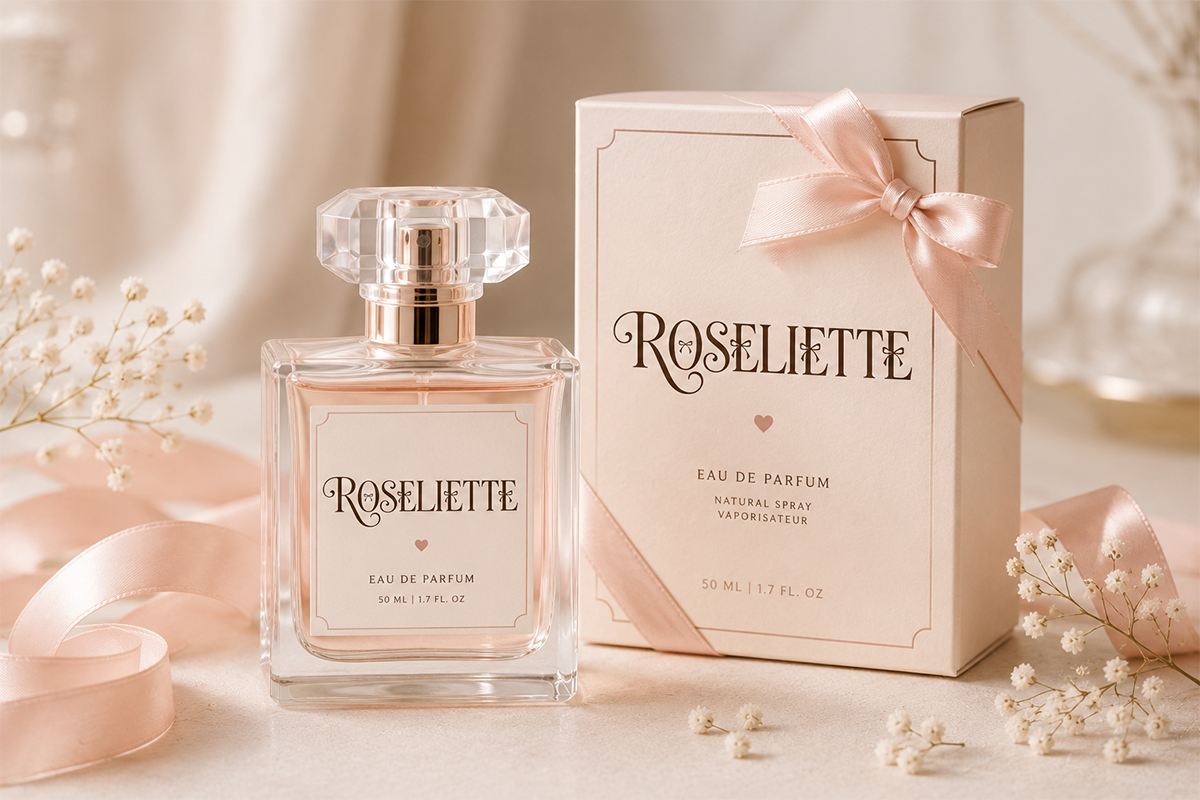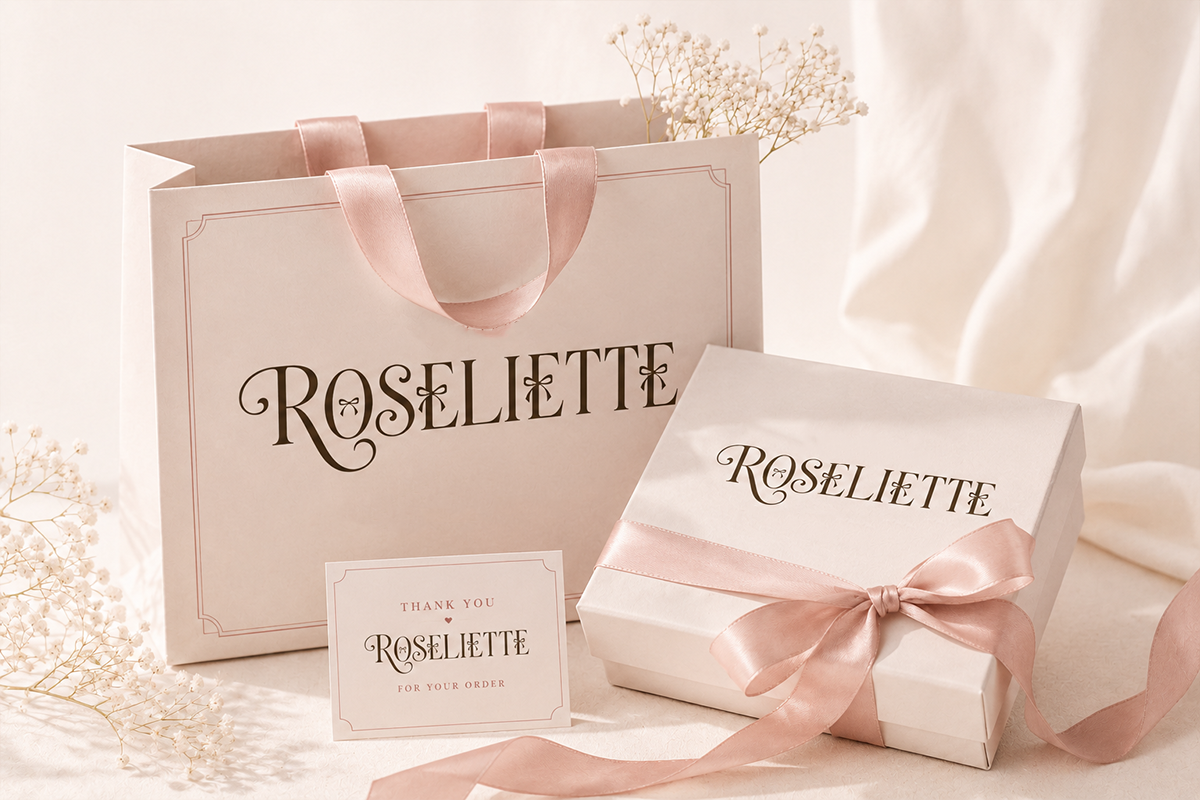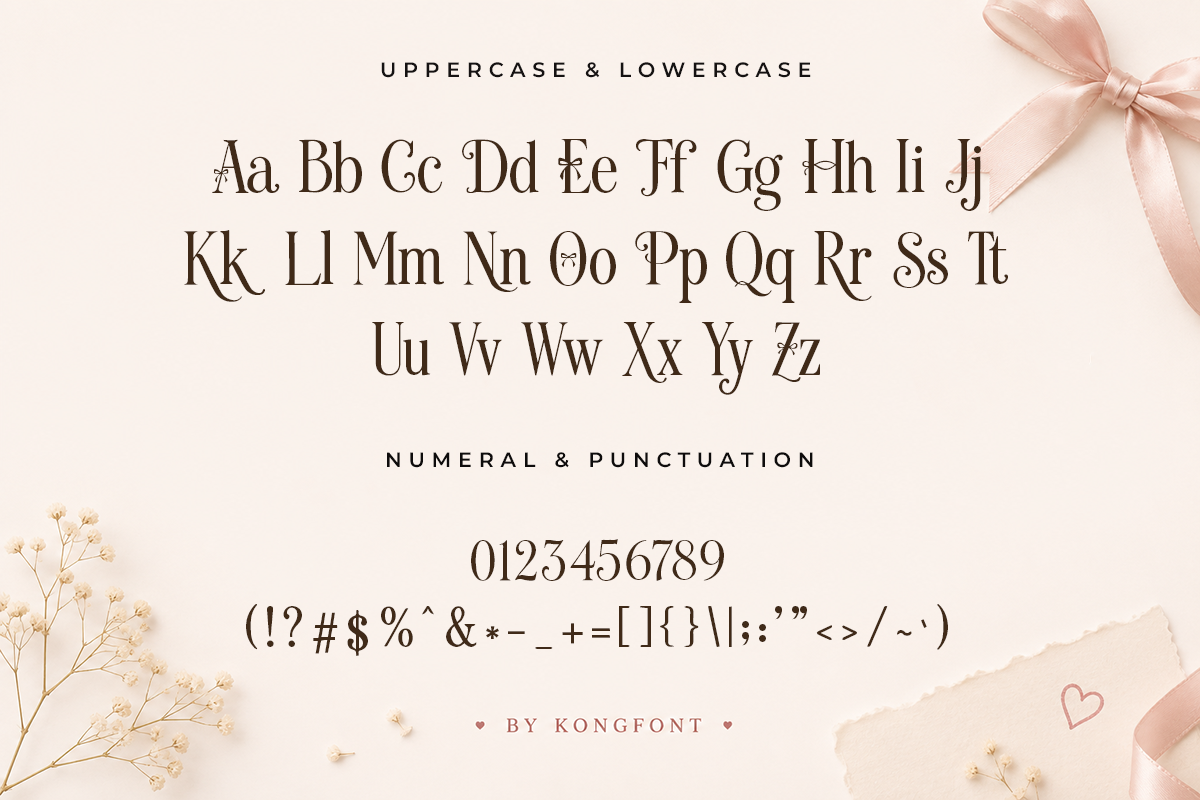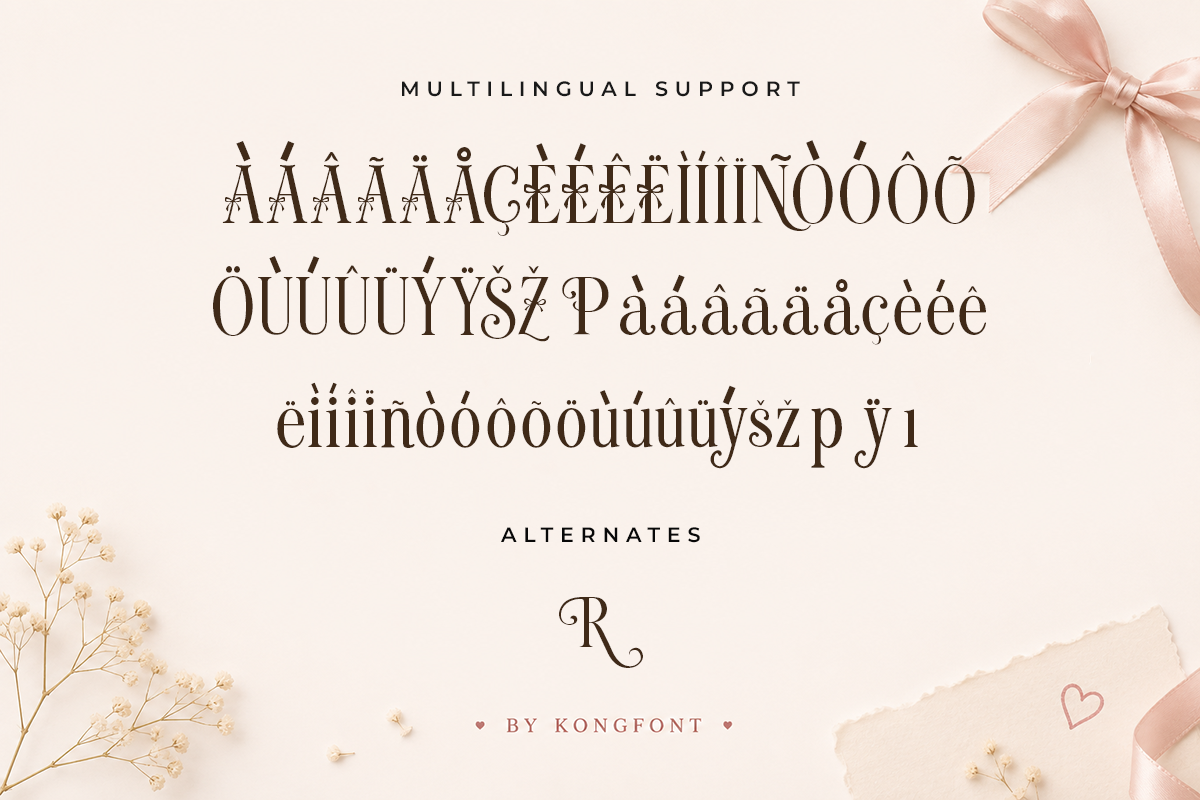
Roseliette is a sweet and elegant display font designed with graceful curves, refined serif details, and charming ribbon-inspired accents. Its romantic personality creates a delicate balance between classic sophistication and playful femininity.
Perfect for wedding invitations, beauty branding, fashion logos, packaging, greeting cards, stationery, social media graphics, editorial designs, product labels, and romantic-themed projects.